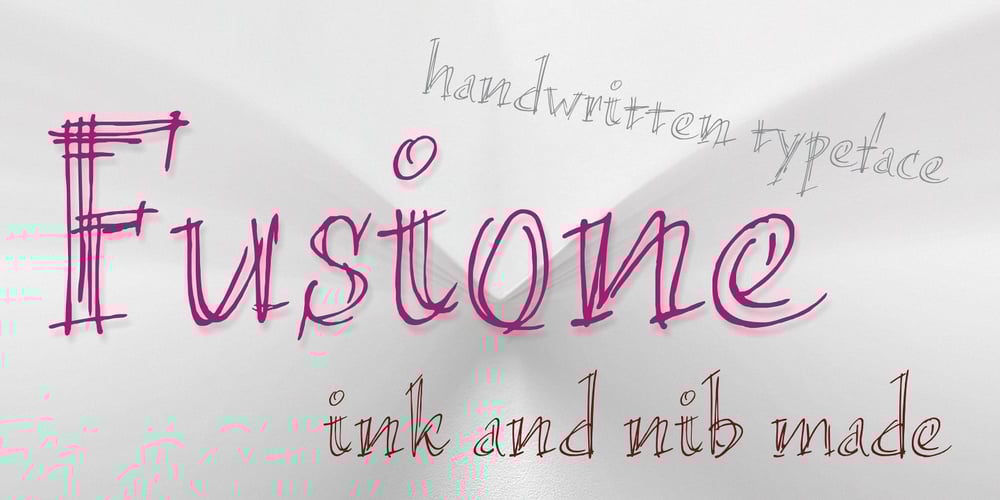
Fusione
Fusione font
Fusione Font Family was designed by Paweł Burgiel and published by Paweł Burgiel. Fusione contains 1 styles and family package options. Fusione is a handwritten, informal, sketch-like typeface drawn by hand using ink and a sharp nib pen on smooth paper. It is useful for display, poster, books titling, advertising, and magazine work. Best used in Open Type apps, it has automatically exchanging alternates for better simulate true handlettering. Character set support Central and Eastern European as well as Western European languages.